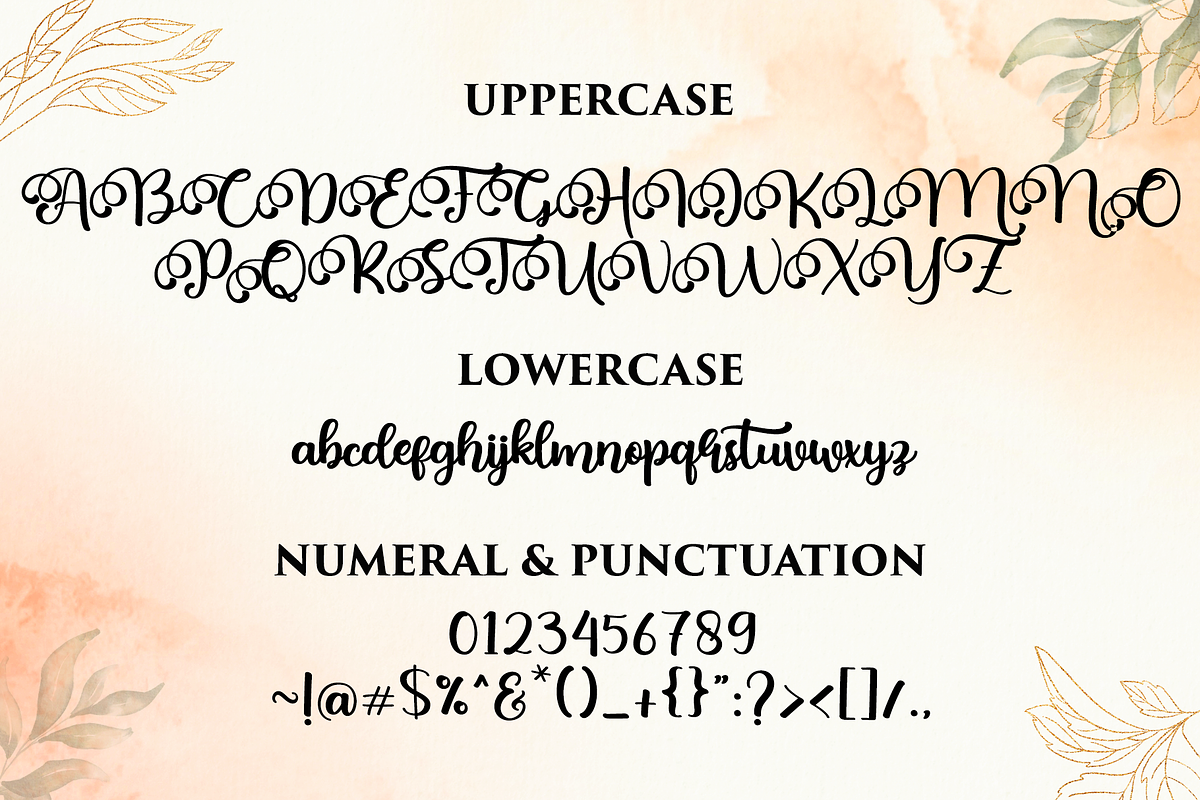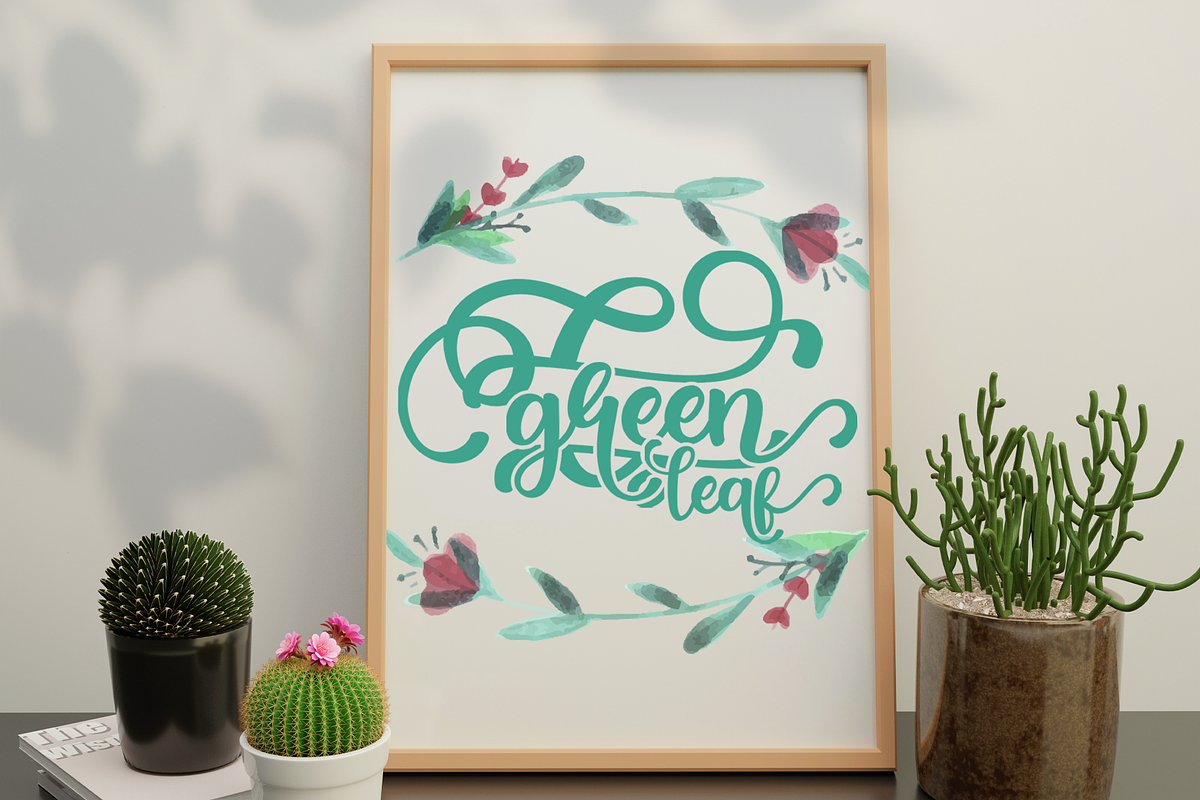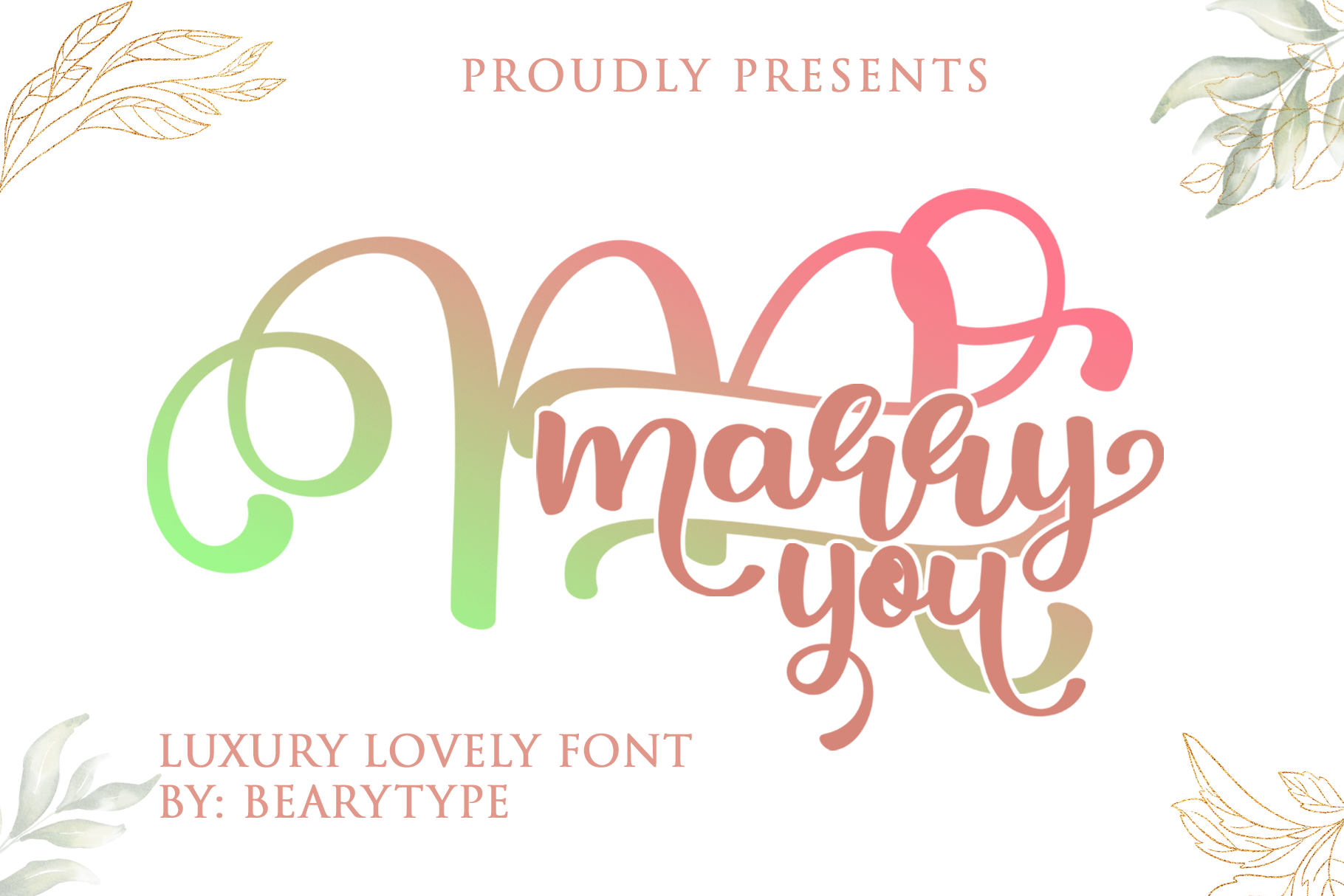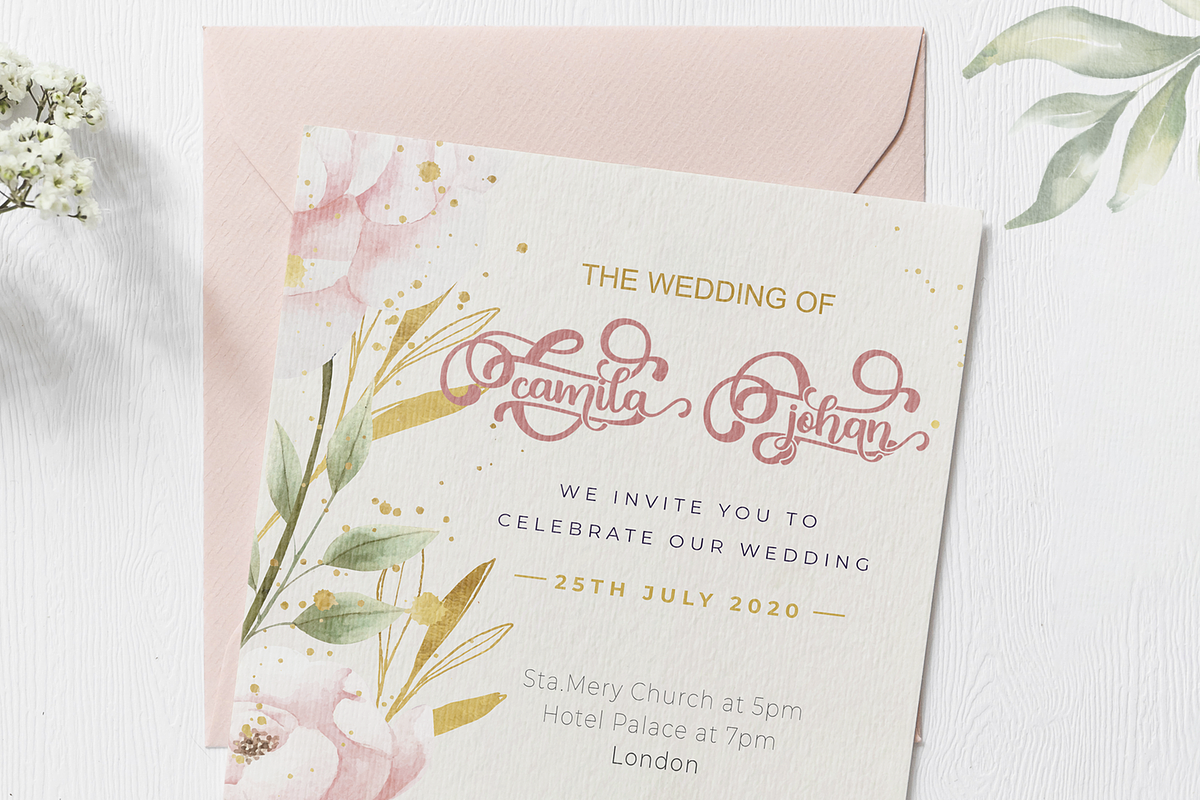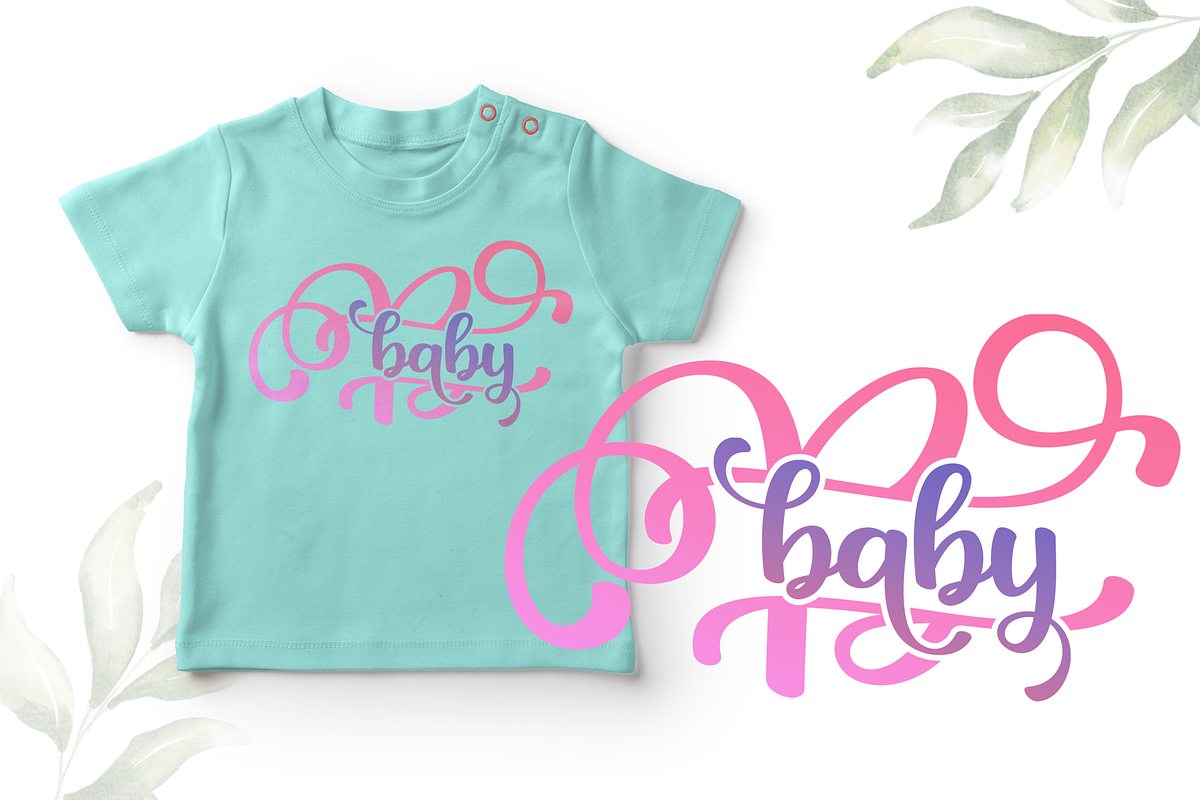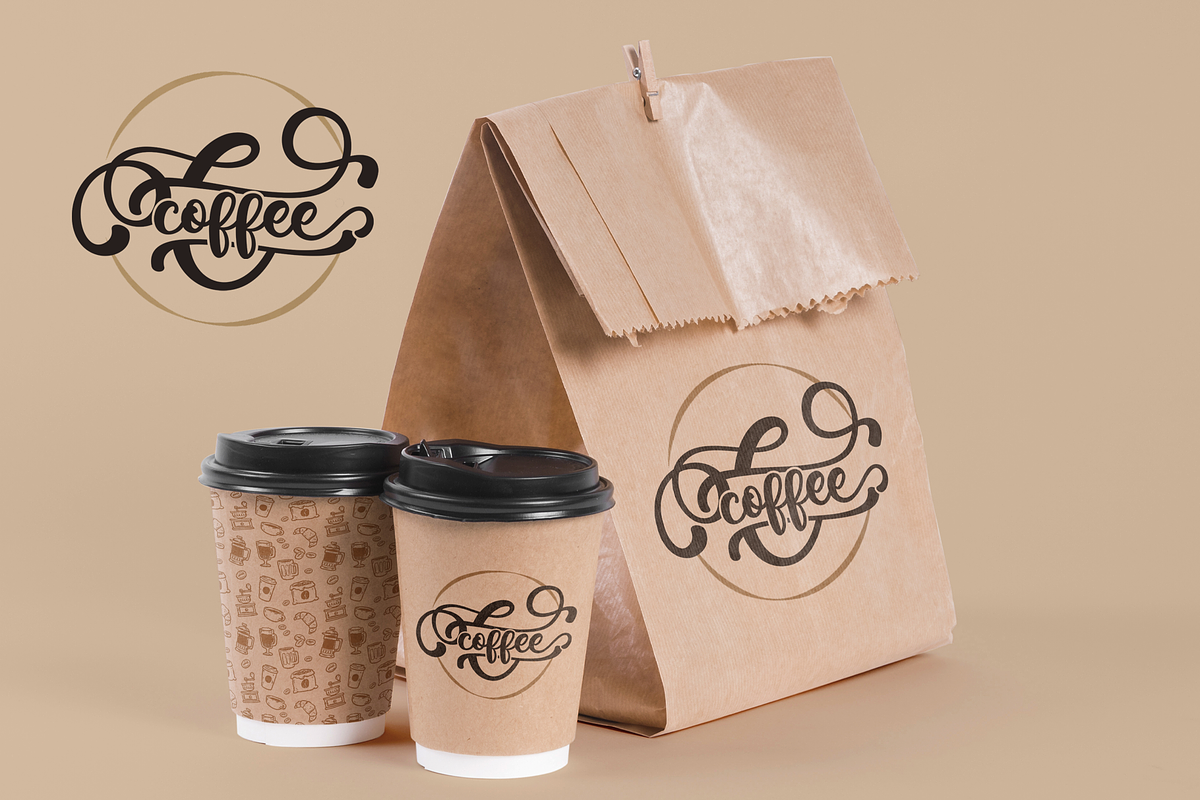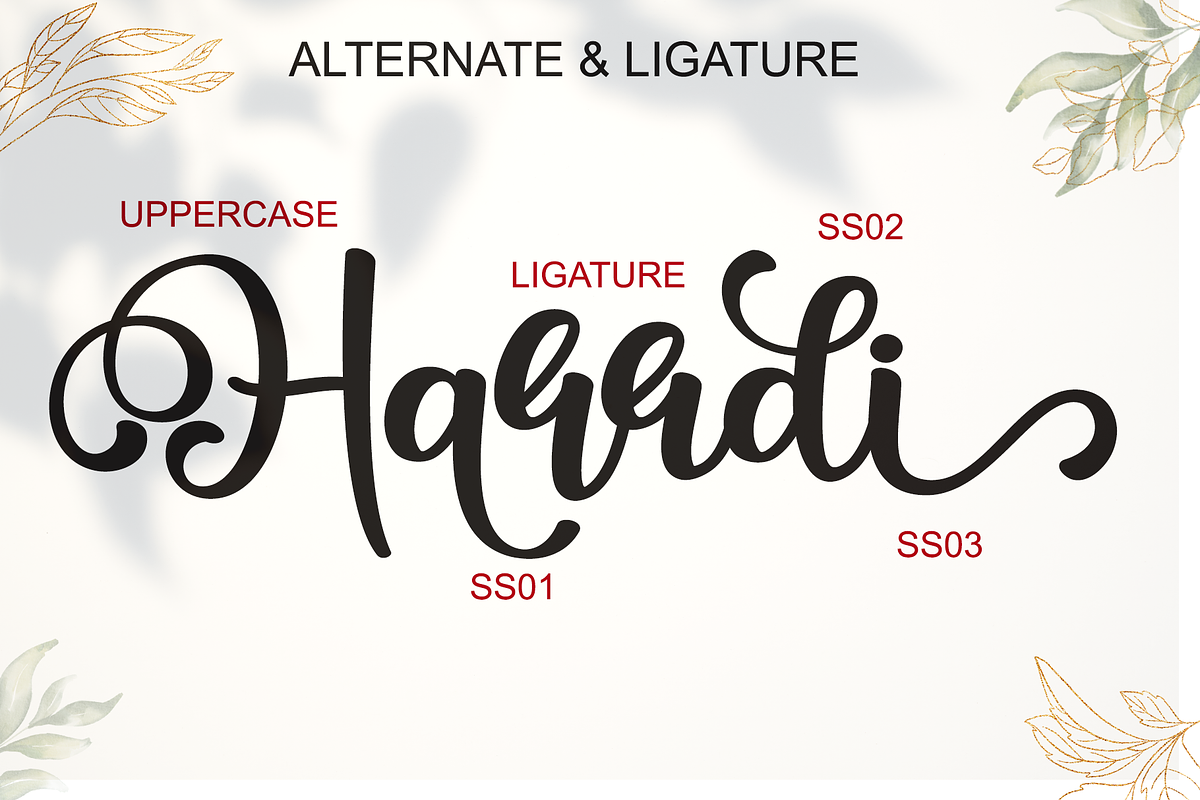
Marry You - Modern Calligraphy Font
Proudly presents our font Marry You. Marry You is mazing hand lettering look attractive and natural!
Every single letters have been carefully crafted to make your text looks beautiful. This font includes 277glyphs, including 72 alternates character. It has over 60 extended Latin characters for language support. This font is suitable for Wedding invitation, Love themed design, mugs, christmas cards, poster design etc, and also this font is PUA encoded so all characters are accessible via Character Map, Font Book, or the font management program of your choice.